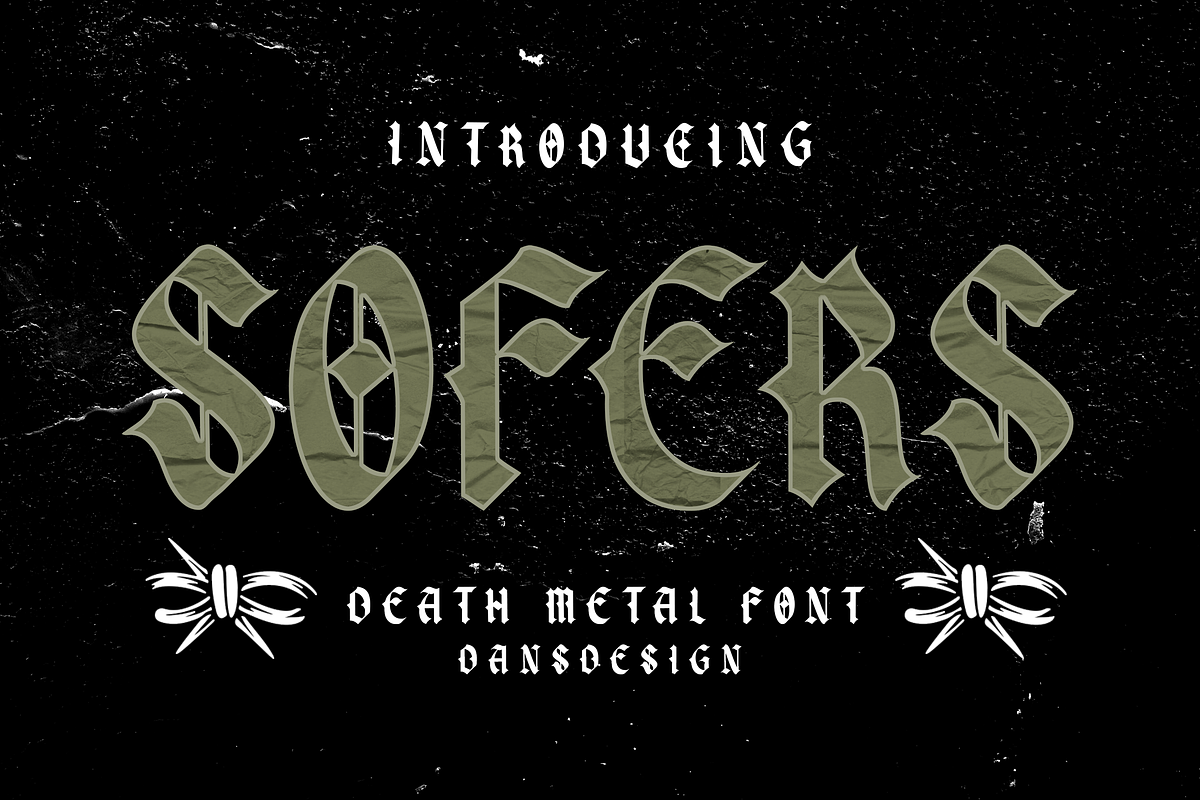
Soffer Vintage Blackletter Font Free Download is a striking typeface inspired by traditional Gothic calligraphy, infused with vintage charm and bold craftsmanship. Featuring sharp angles, ornate details, and medieval flair, Soffer is ideal for tattoo designs, rock or metal band logos, whiskey labels, poster art, and heritage-themed branding.
This font speaks with authority and old-world mystique—perfect for making a dramatic visual impact. Whether you're going for a rebellious edge or a touch of historical elegance, Soffer delivers with its classic blackletter form and detailed artistry.
Let your next design echo the past with the timeless power of Soffer.